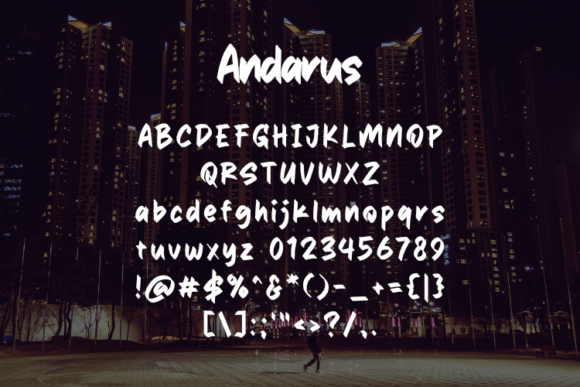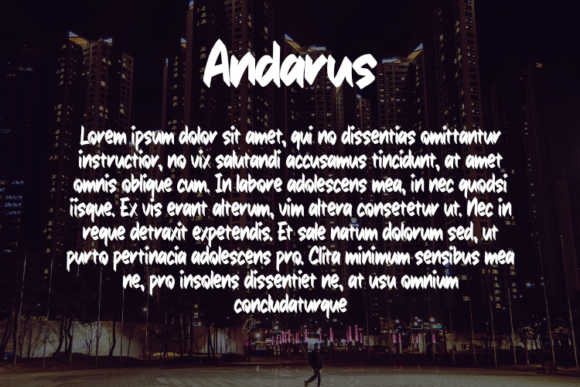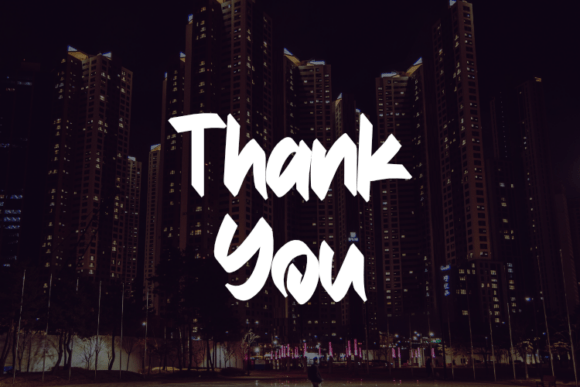
Discover the Eclectic World of Andarus Font: Elevate Your Designs with Style and Sophistication
Are you a designer, crafter, or DIY enthusiast looking for a font that can add a touch of elegance and sophistication to your projects? Look no further than Andarus Font, a versatile and dynamic typeface that is taking the design world by storm. In this article, we’ll dive into the world of Andarus, exploring its features, benefits, and applications, and show you how it can help you take your designs to the next level.
What is Andarus Font?
Andarus Font is a modern, eclectic typeface that exudes style and sophistication. Its unique design makes it perfect for a wide range of applications, from clothing and t-shirts to branding, packaging, and digital media. Whether you’re a professional designer or a crafty DIY enthusiast, Andarus is designed to help you create stunning visuals that capture attention and leave a lasting impression.
Key Features of Andarus Font
So, what makes Andarus Font so special? Here are some of its key features:
- Versatility: Andarus is a highly versatile font that can be used for a wide range of design projects, from fashion and lifestyle to technology and entertainment.
- Dynamic Design: Andarus has a dynamic design that effortlessly enhances the aesthetic of any product or project, making it perfect for designers and crafters who want to create visually stunning work.
Benefits of Using Andarus Font
So, why should you choose Andarus Font for your design projects? Here are some of the benefits you can expect:
- Enhanced Creativity: Andarus Font offers a wide range of design possibilities, allowing you to experiment with different styles and ideas.
- Professional Results: Andarus Font is designed to help you achieve professional-looking results, even if you’re a beginner or DIY enthusiast.
- Endless Design Possibilities: From clothing and accessories to branding and digital media, Andarus Font offers endless design possibilities, allowing you to explore new ideas and push your creative boundaries.
Applications of Andarus Font
Andarus Font is perfect for a wide range of design projects, including:
- Fashion and Apparel: Use Andarus to create stunning designs for clothing, t-shirts, hats, and other fashion accessories.
- Branding and Packaging: Andarus is perfect for branding and packaging projects, adding a touch of elegance and sophistication to your designs.
- Digital Media: Use Andarus to create visually stunning digital media, including social media graphics, blog posts, and website headers.
- Crafting and DIY: Andarus Font is also perfect for crafters and DIY enthusiasts, offering a wide range of design possibilities for handmade projects and crafts.
In conclusion, Andarus Font is a versatile and dynamic typeface that offers a wide range of design possibilities for designers, crafters, and DIY enthusiasts. With its unique design, seamless compatibility, and convenient file format, Andarus is the perfect choice for anyone looking to elevate their designs with style and sophistication. So why wait? Embrace the Andarus experience and let it redefine your creative vision.
Whether you’re a professional designer or a crafty DIY enthusiast, Andarus Font is sure to become your go-to typeface for all your design projects. So, take the first step today and discover the eclectic world of Andarus Font.